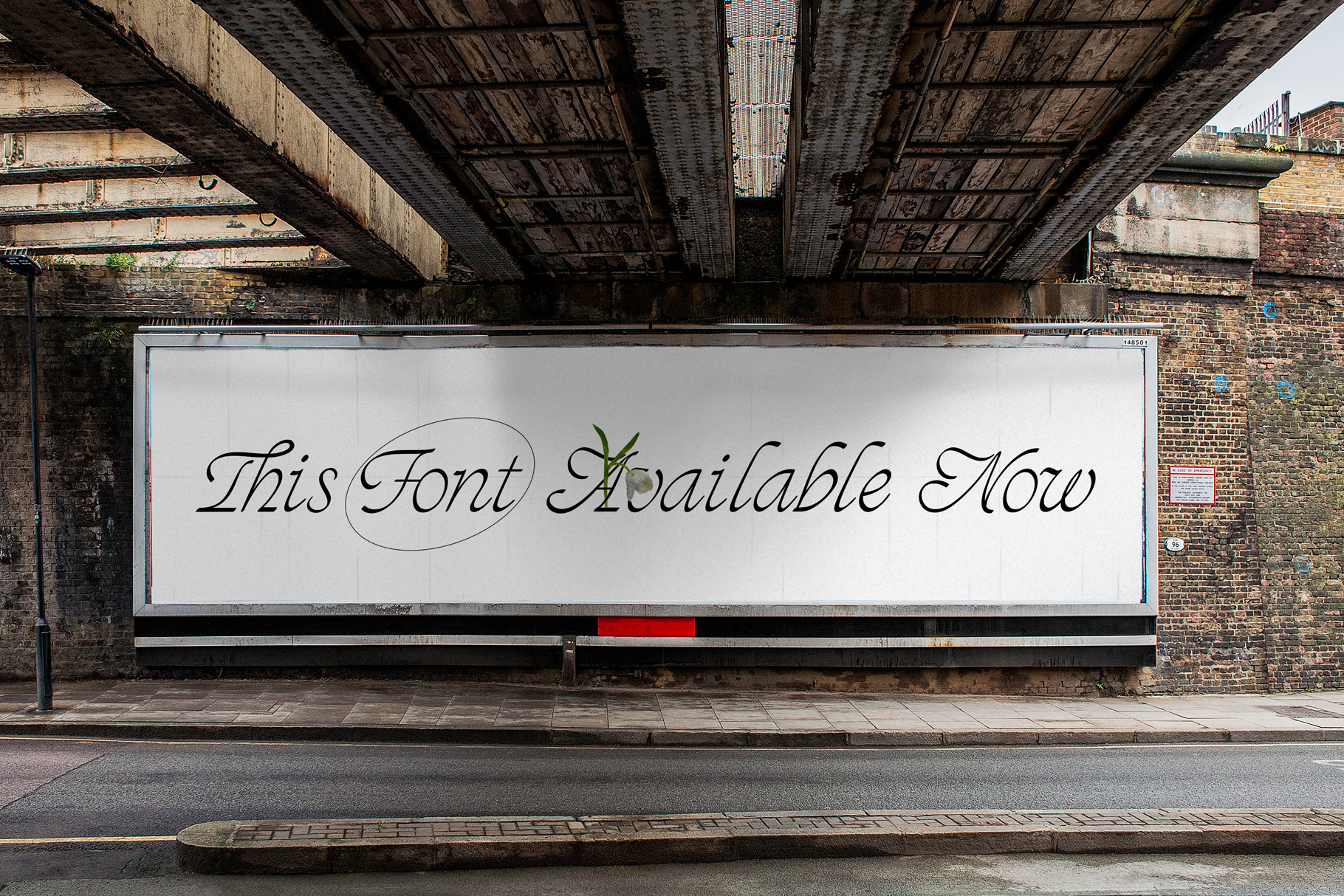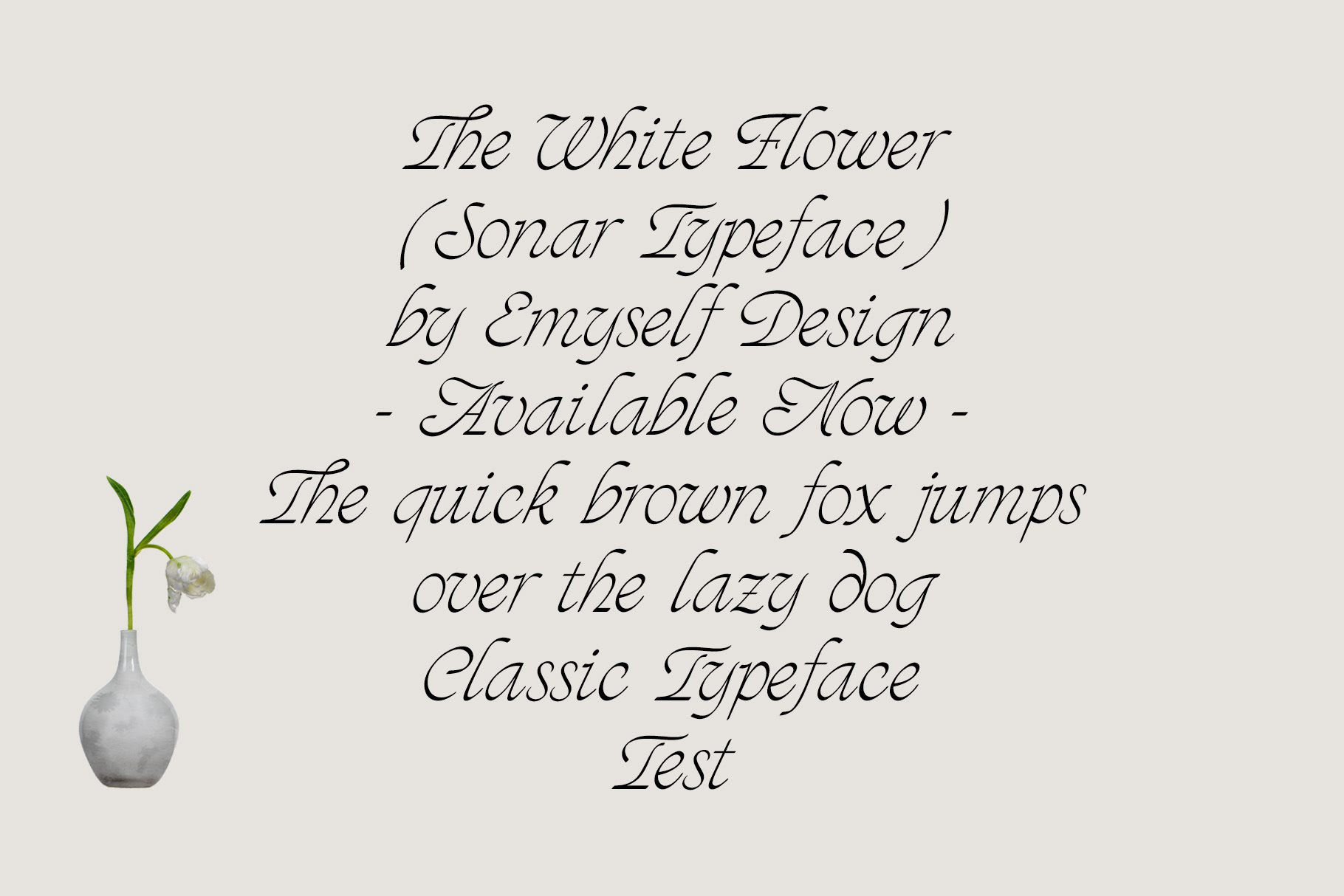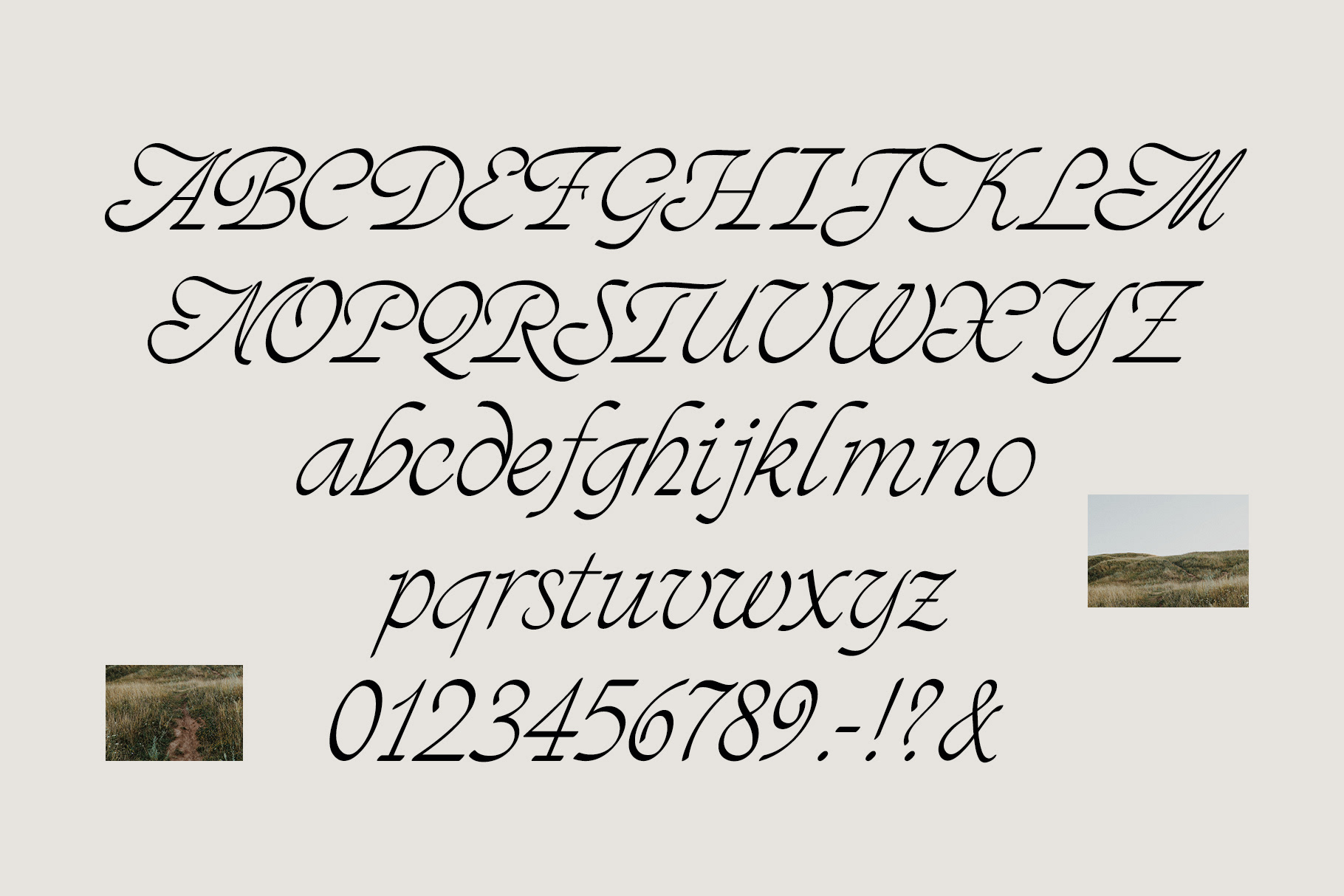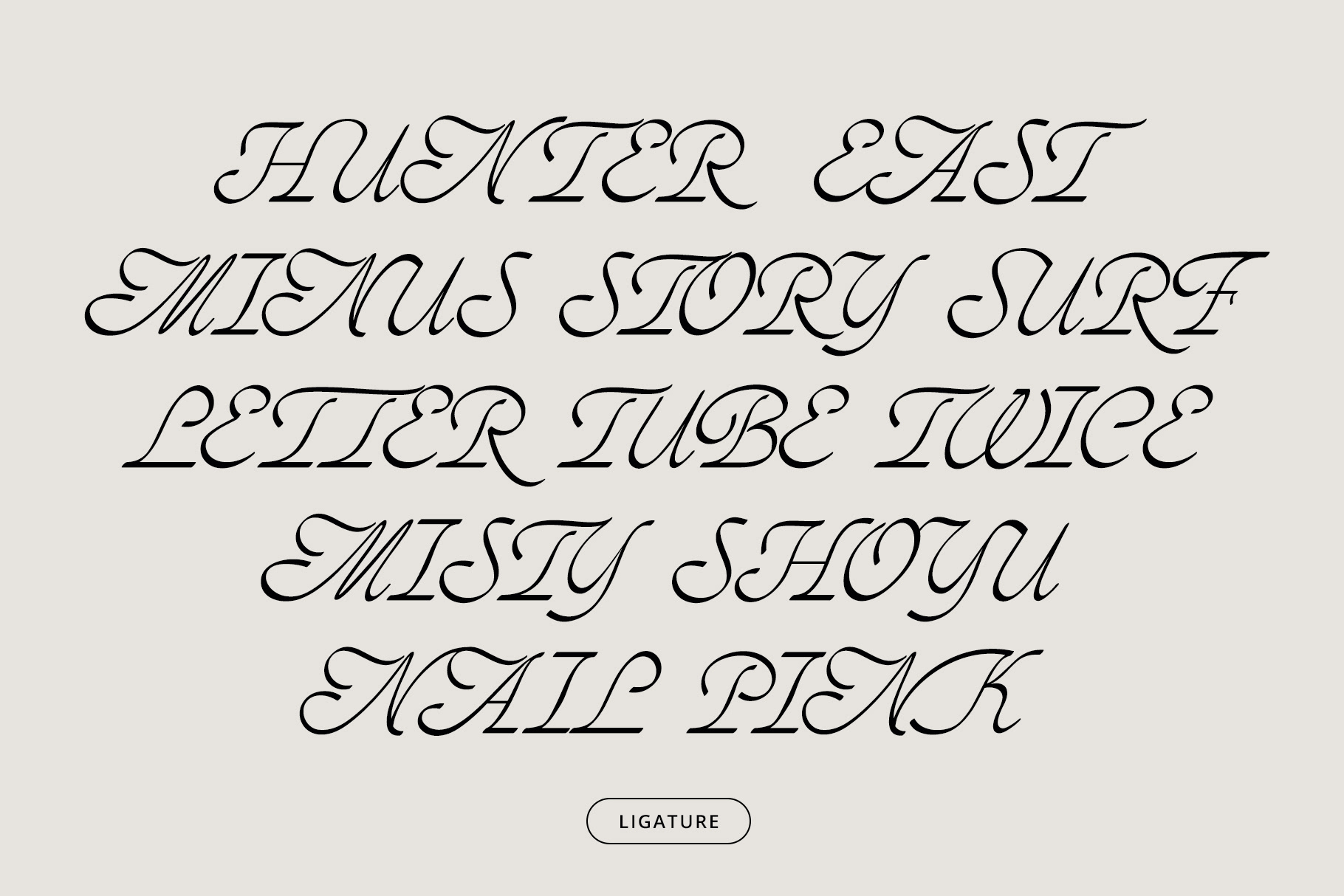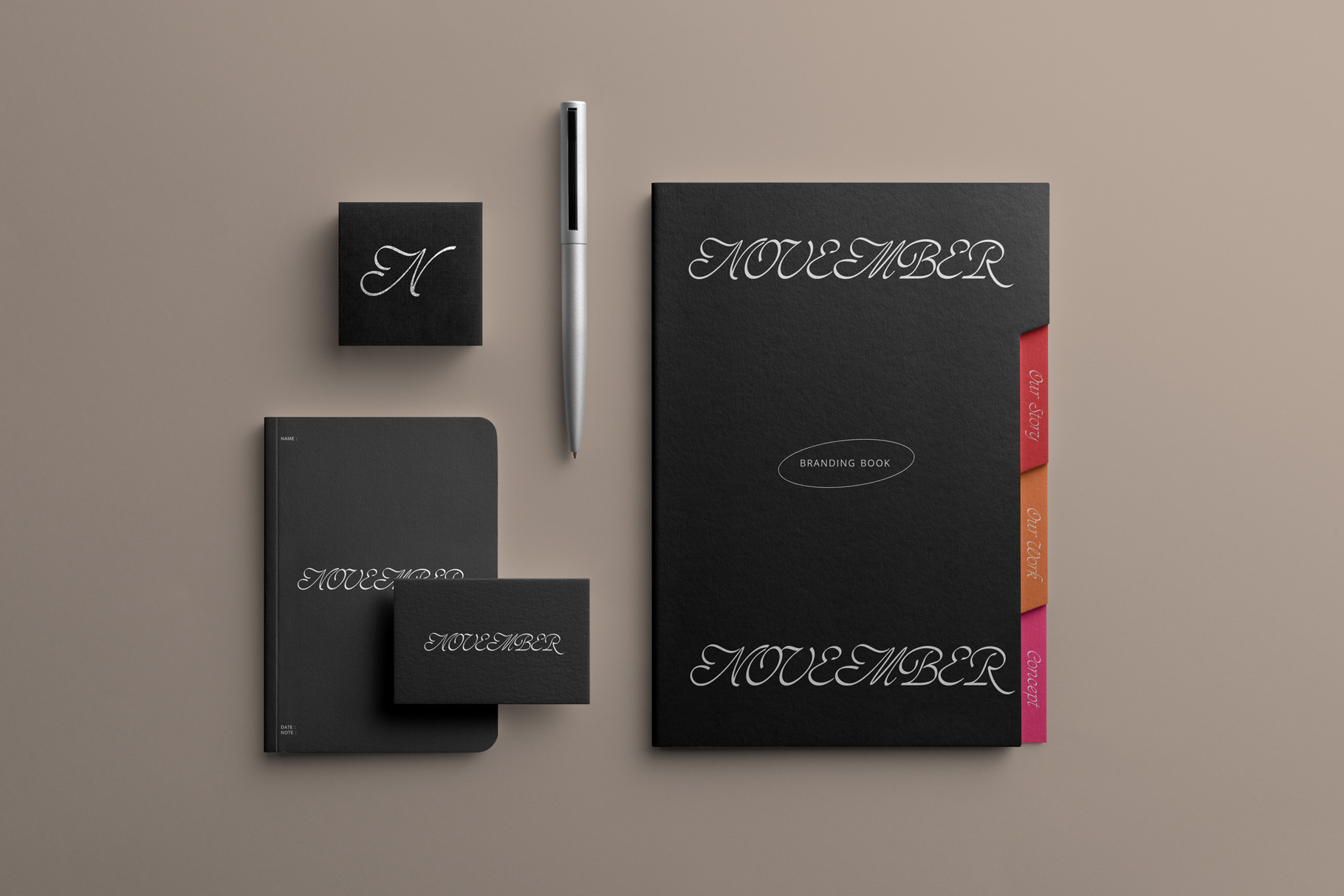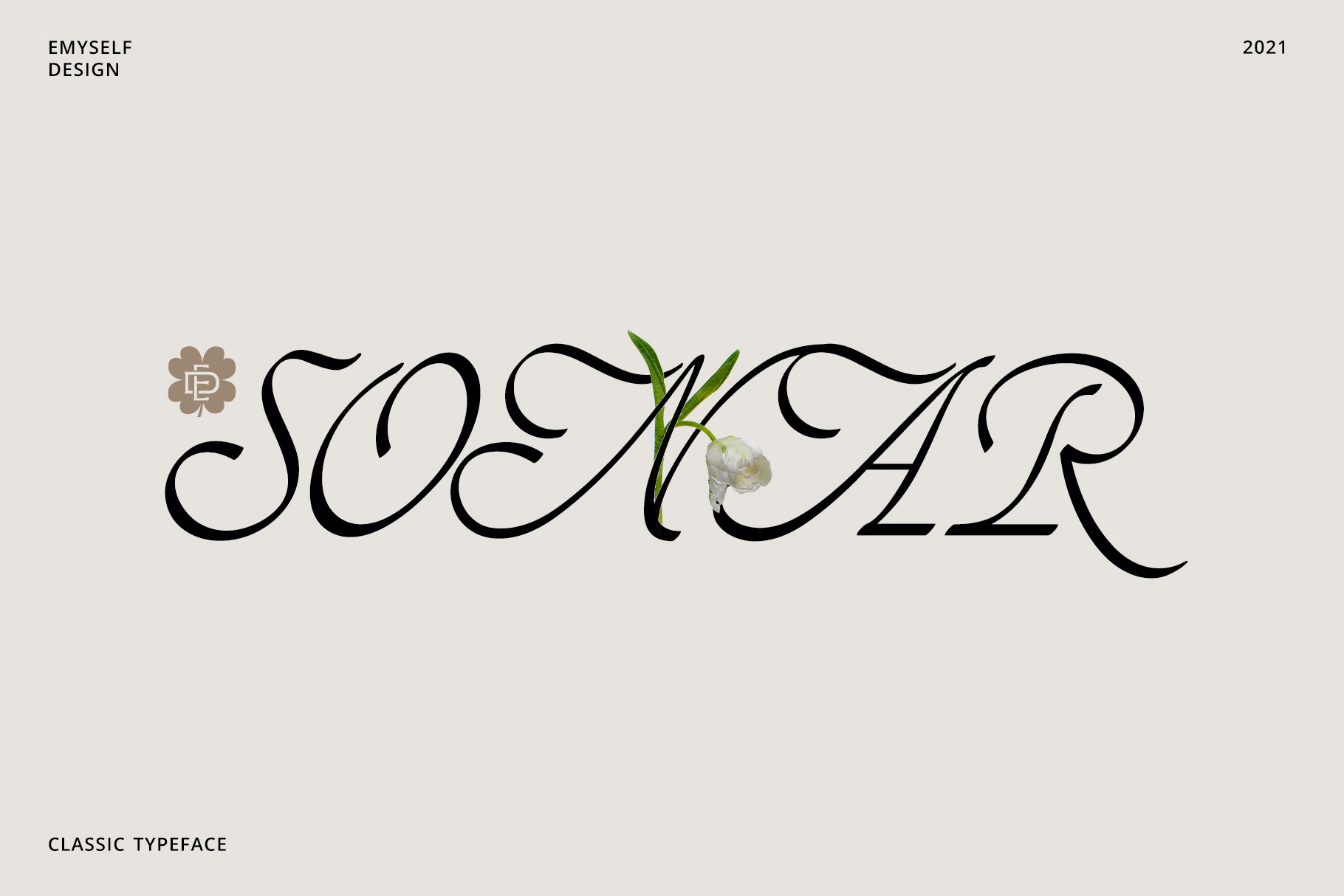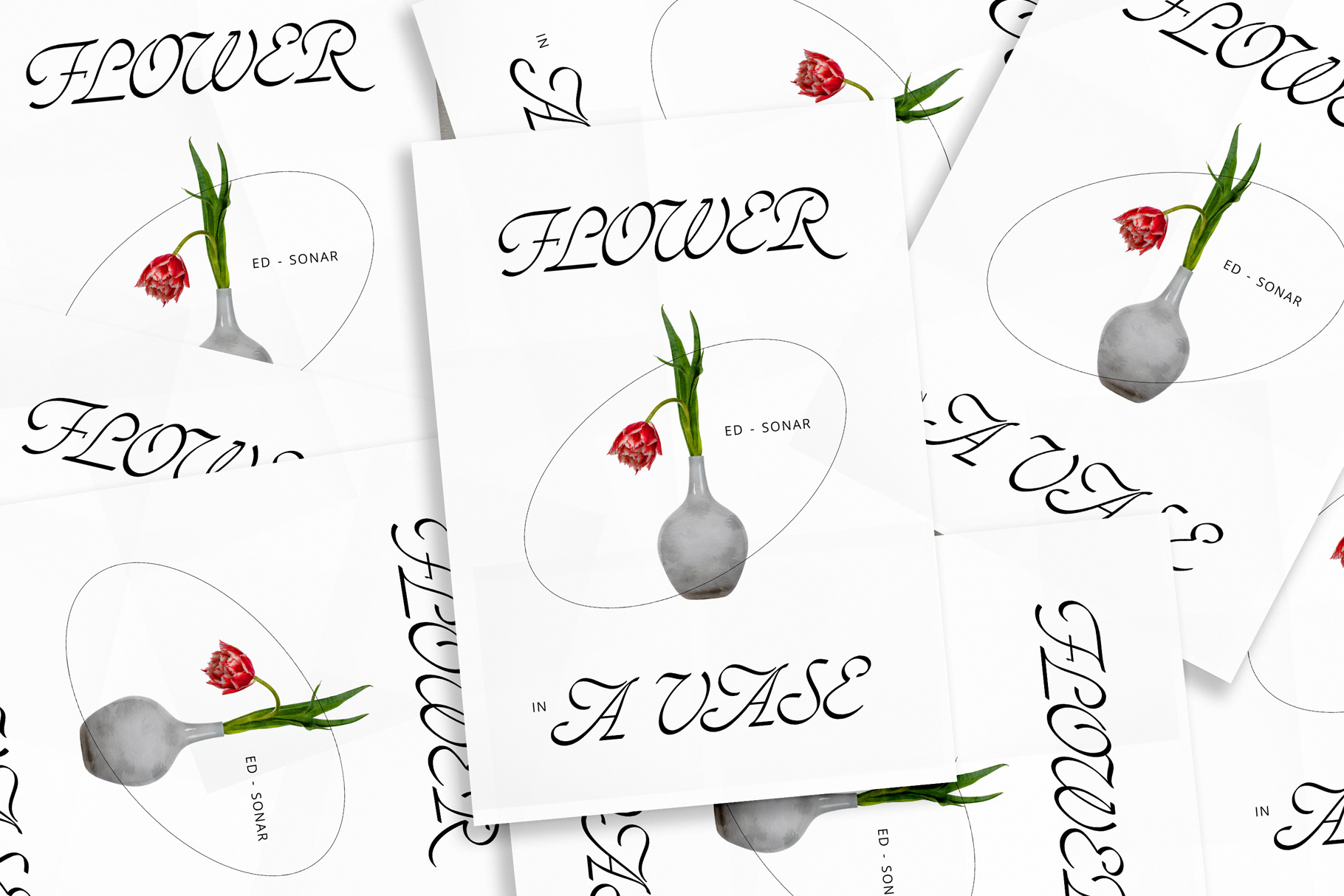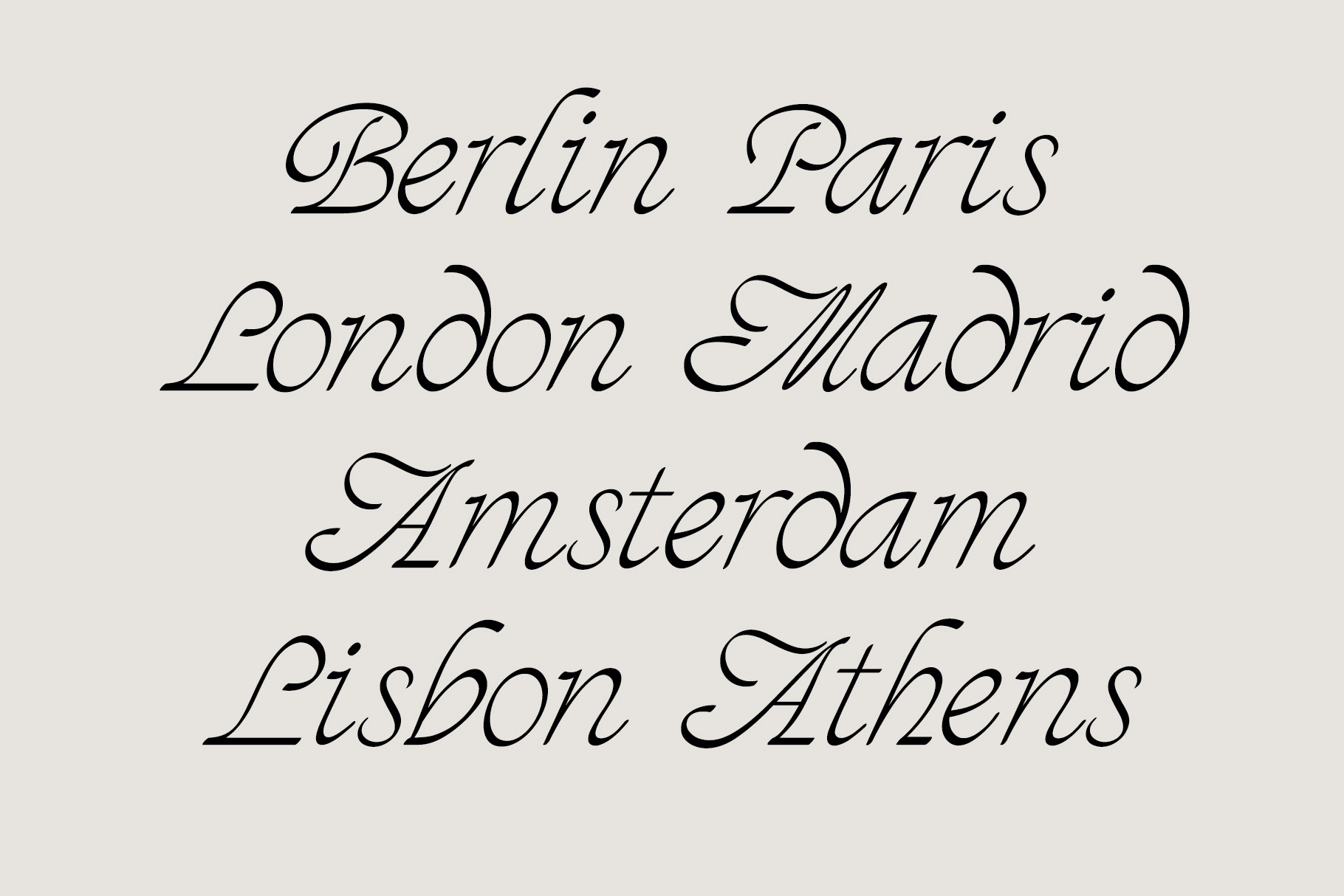
ED Sonar Classic Typeface
ED Solar is a beautiful classic elegant style script font. This font is inspired by the italic font style combined with a script type font. there are several features such as: Standard character, Ligature, Alternative Character and multi-language support.